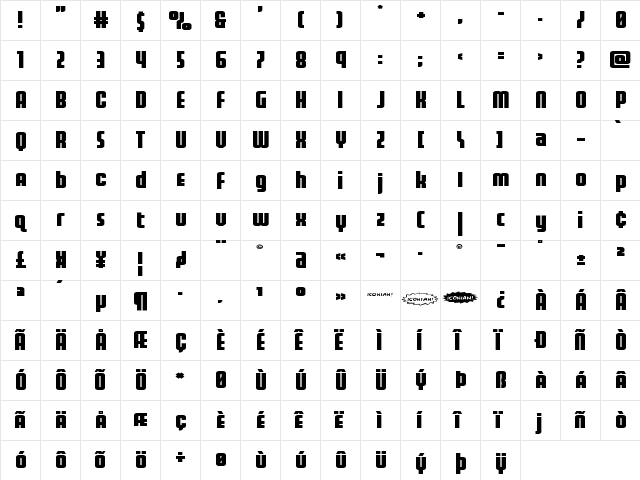
Homelander Wide Regular
Design Context for Homelander Wide Typeface
Homelander Wide offers clean, dependable letterforms without strong stylistic allegiance, making it a practical choice for designers who need flexibility.